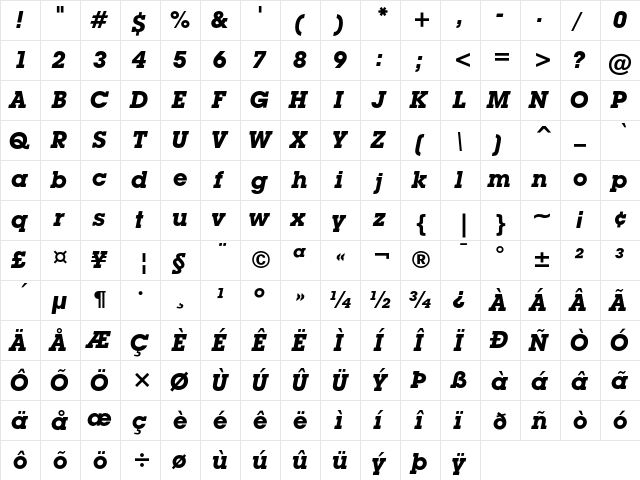
ITC Lubalin Graph Bold Oblique
Design Context for ITC Lubalin Graph Typeface
ITC Lubalin Graph is a composed and adaptable typeface that performs quietly and consistently across a wide range of design contexts. The dynamic lean of this cut emphasises speed and emphasis in any layout. Its bold stroke weight gives it real presence on the page.
Pro Tip: Use ITC Lubalin Graph for emphasis, pull quotes, and subheadings where its slanted energy can add rhythm to the layout.